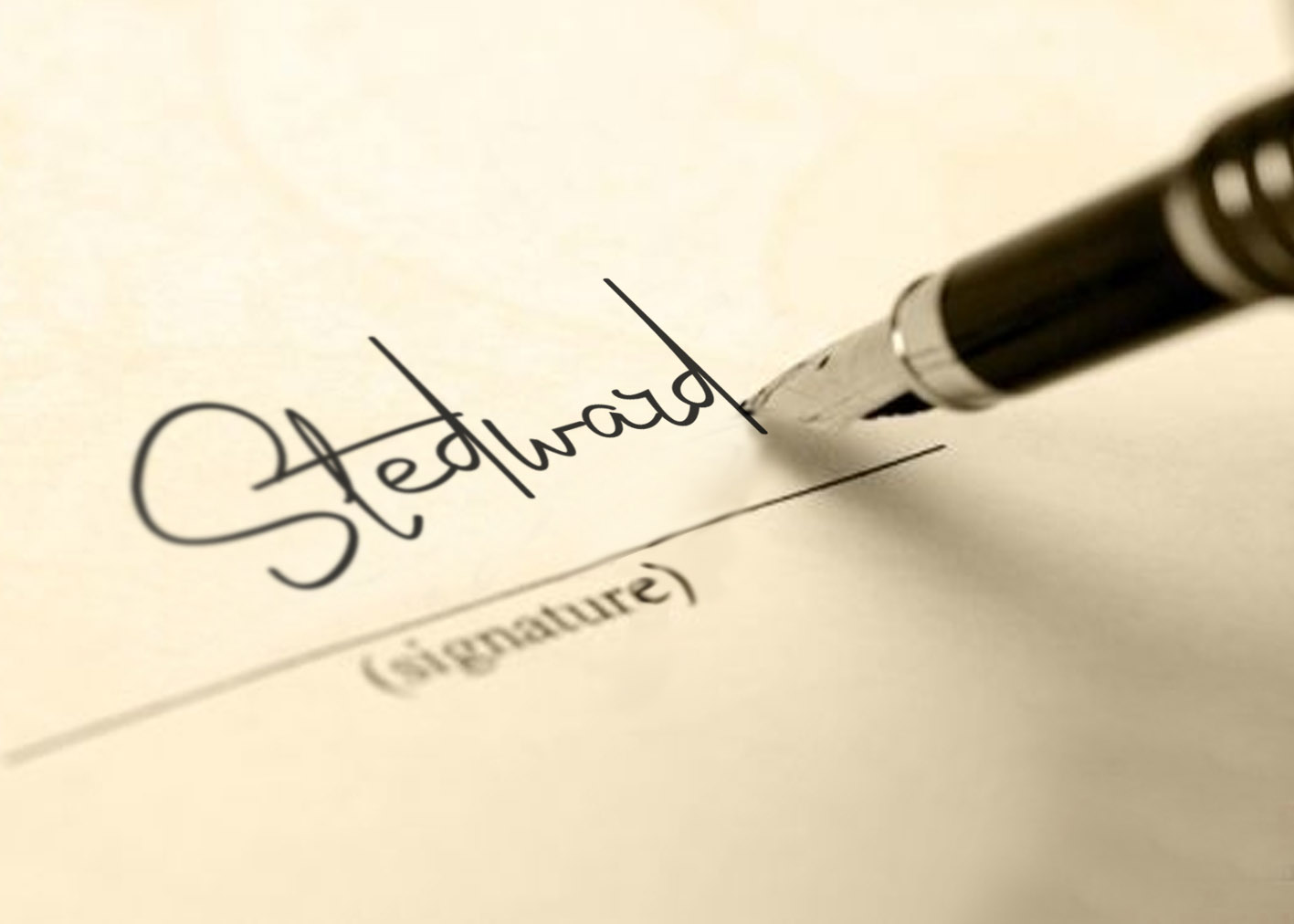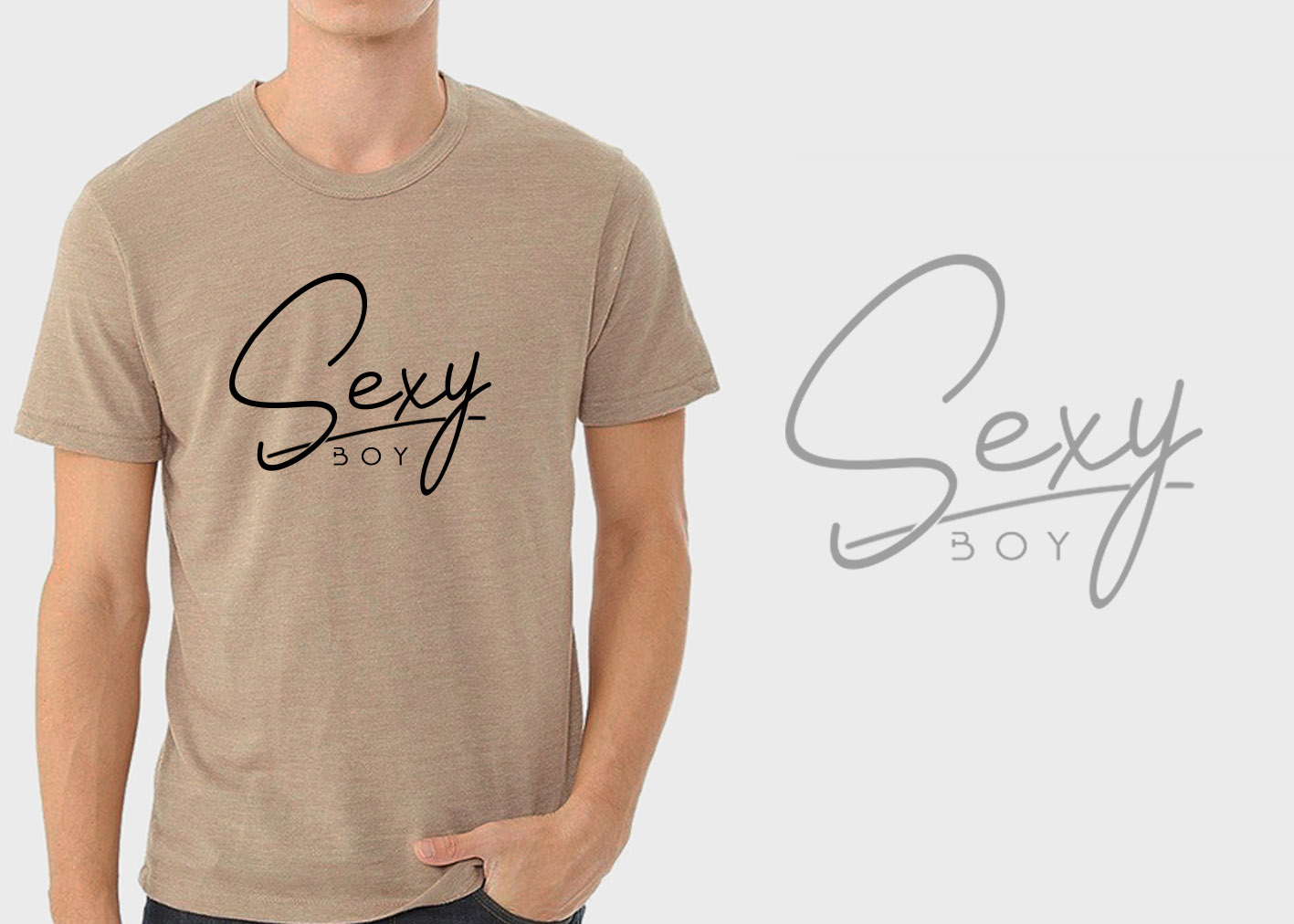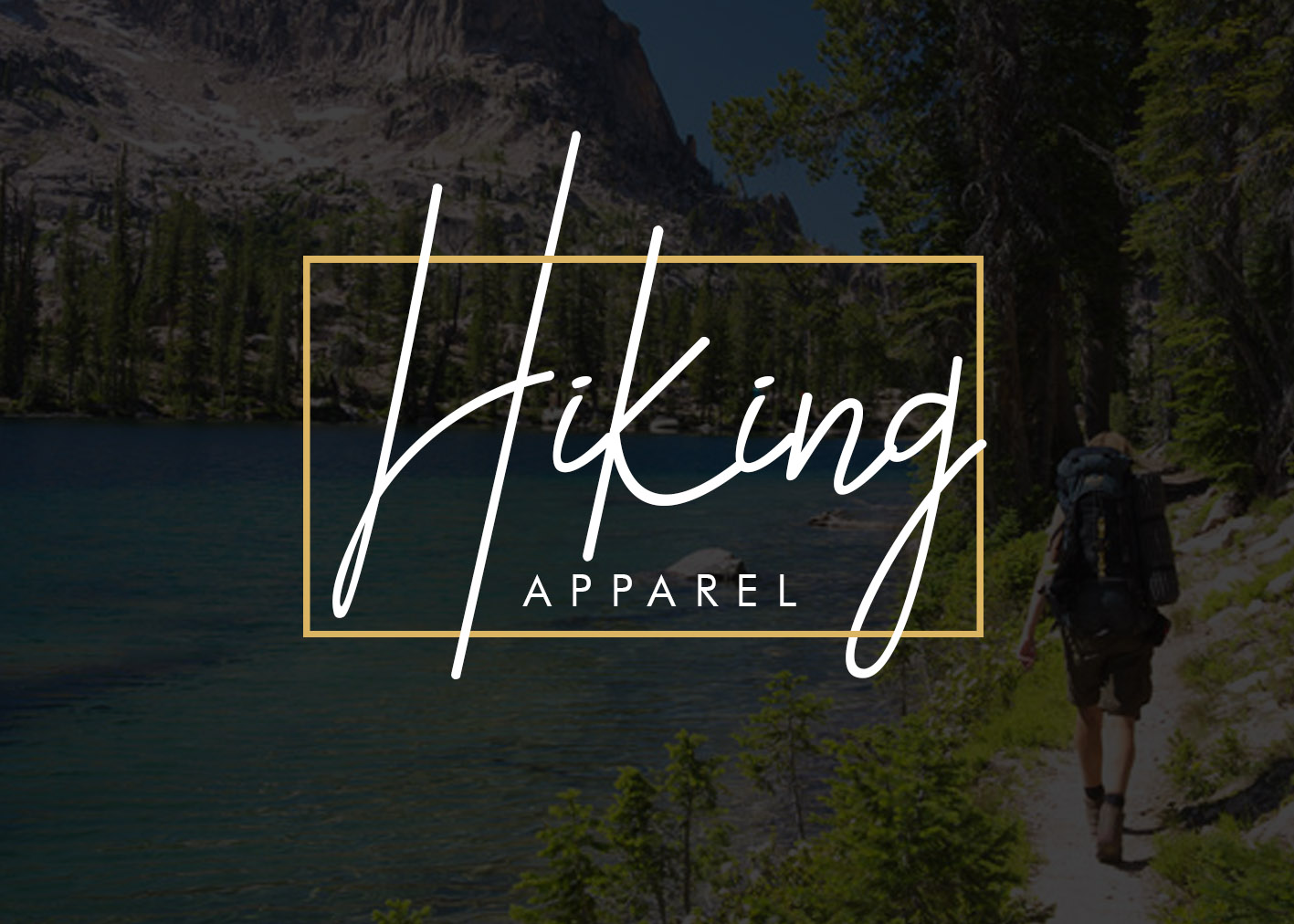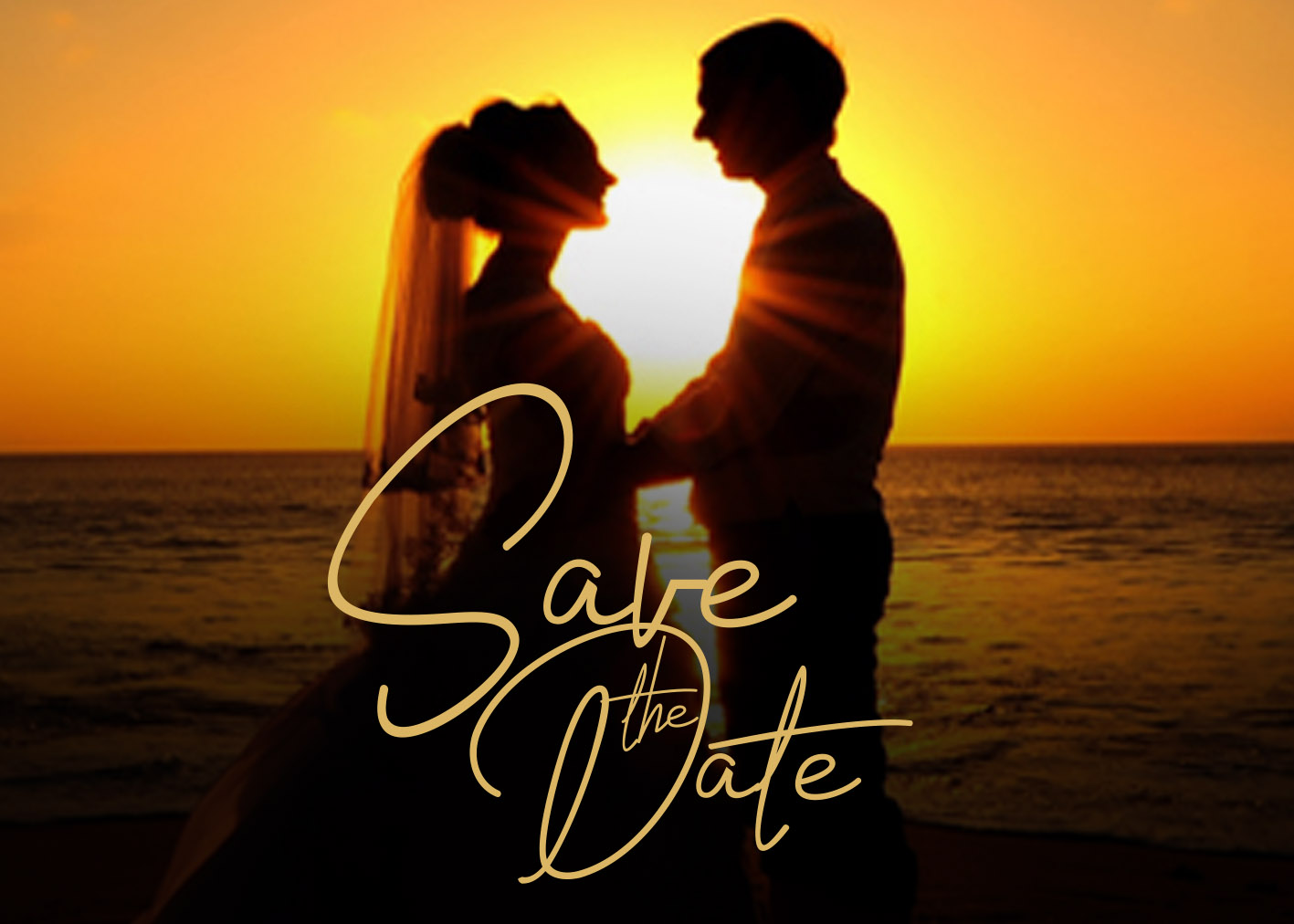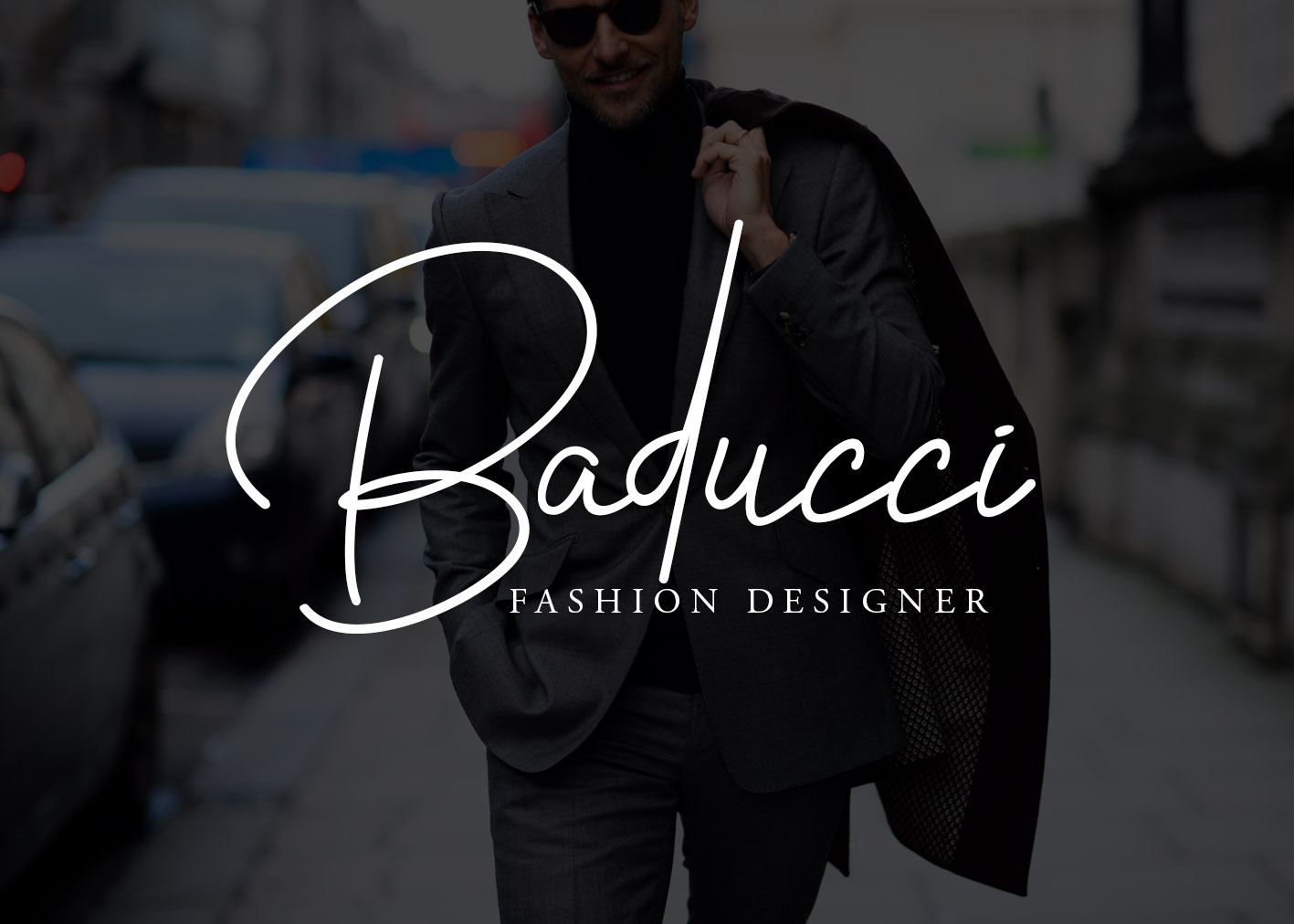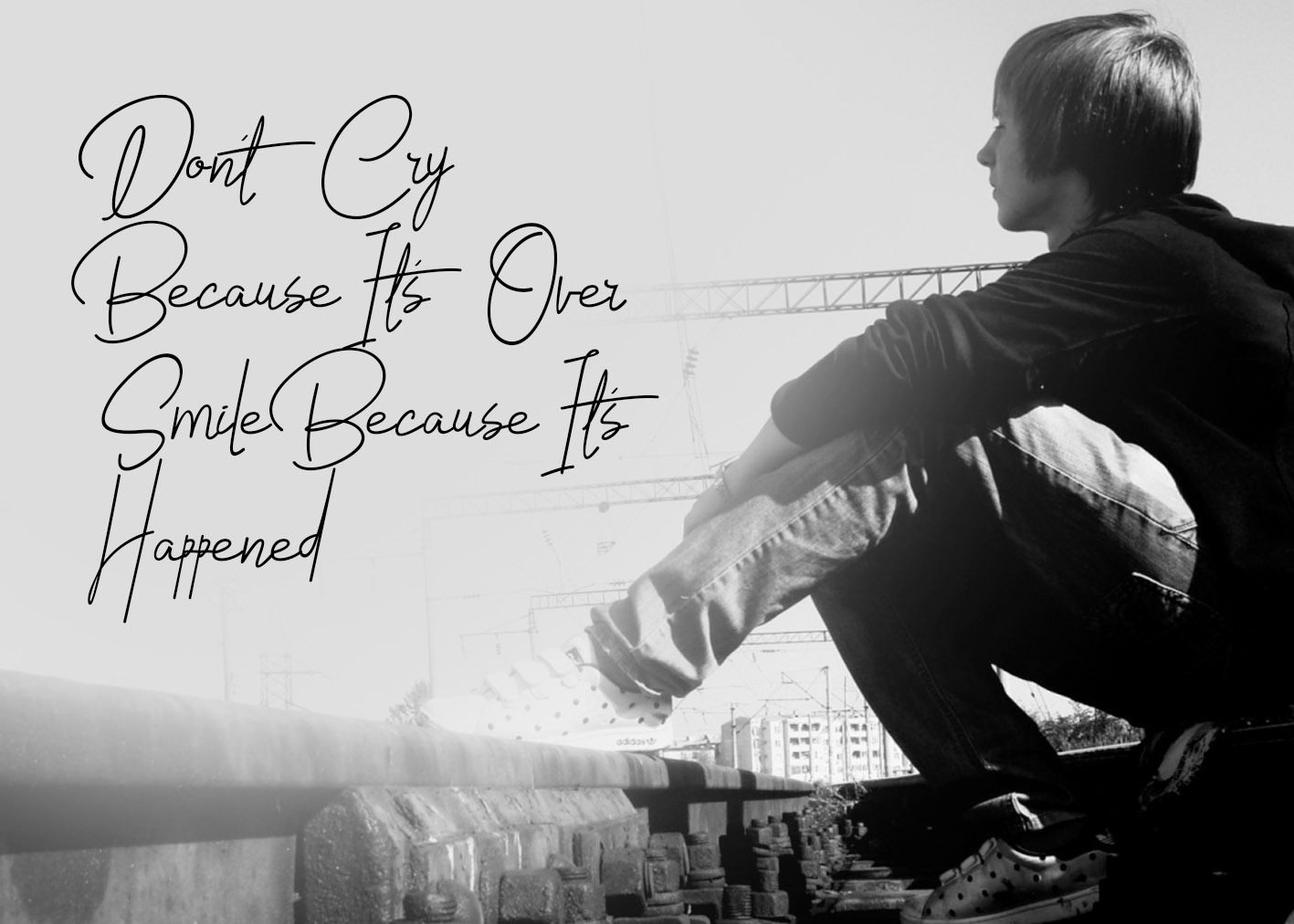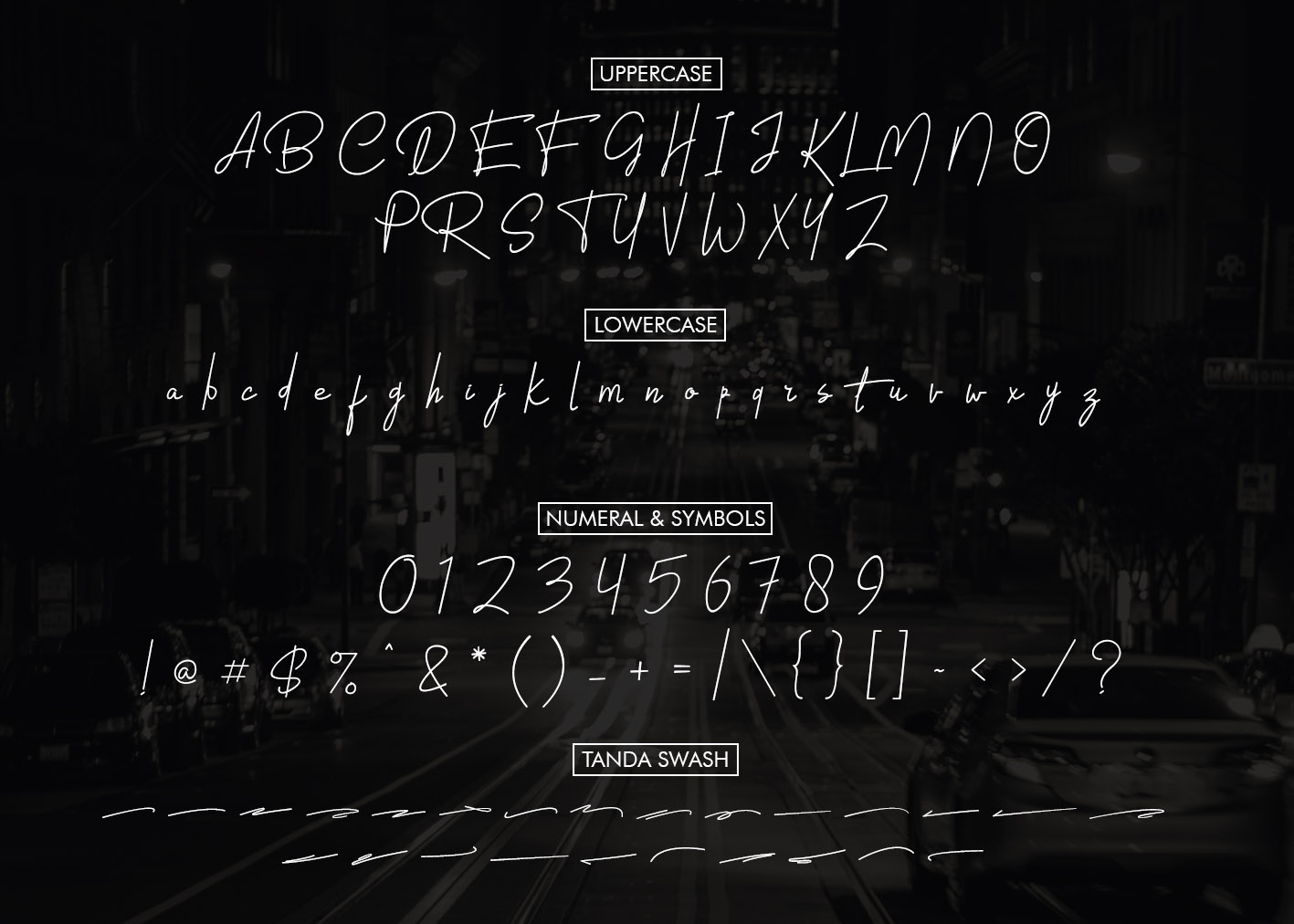
HomeScript FontsTanda Signature Font Script Fonts Tanda Signature Font FacebookXPinterestWhatsApp Tanda Signature Font Poster 2 Tanda Signature Font Poster 3 Tanda Signature Font Poster 4 Tanda Signature Font Poster 5 Tanda Signature Font Poster 6 Tanda Signature Font Poster 7 Tanda Signature Font Poster 8 About Tanda Signature Font Introducing Tanda Signature Typeface, a thin fresh type with a unique style. DOWNLOAD NOW People also explored Butterfly Font Plans Font Happiness Font Shark Font Say Hi Spooky Font Beauty Straw Font Effendi Font Sanzyume Font Assassin Font 307 0 TagsTanda Signature Font Previous articleEmerald FontNext articleLady Vittoria Font LEAVE A REPLY Cancel reply Comment: Please enter your comment! Name:* Please enter your name here Email:* You have entered an incorrect email address! Please enter your email address here Website: Save my name, email, and website in this browser for the next time I comment. Personal Use Free Berry Personal Use Free Read more about this font Ennobled Pet Personal Use Free Read more about this font Kensin Personal Use Free Read more about this font Solaria Personal Use Free Read more about this font BLOG How to Install and Use Fonts on Windows, macOS, and Web Projects How to Install and Use Fonts on Windows, macOS, and Web Projects Fonts are a crucial part of design and branding. Whether you’re designing a... Top 7 Google Fonts Alternatives for Faster and Privacy-Friendly Web Design (2025) Fonts That Capture the Spirit of New York City The 10 Best Handwriting Fonts to Add Personality to Your Designs